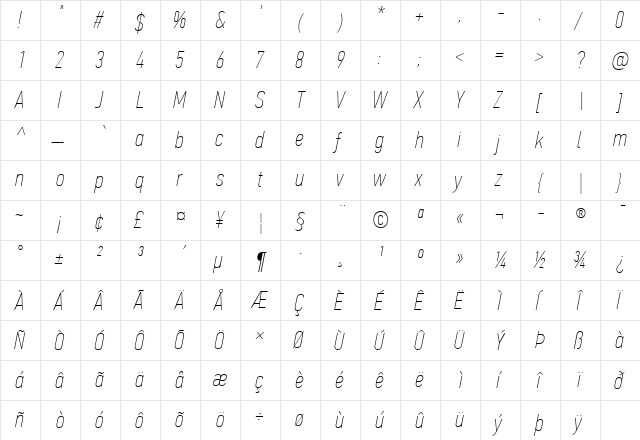
PF Din Text Comp Pro Extra Thin Italic Font Preview
| Foundry | Parachute蠗orldwide |
| Designer | Panos Vassiliou |
Design Context for PF Din Text Comp Pro Typeface
PF Din Text Comp Pro offers clean, dependable letterforms without strong stylistic allegiance, making it a practical choice for designers who need flexibility. The dynamic lean of this cut emphasises speed and emphasis in any layout. Its slender proportions lend an understated elegance to any composition.